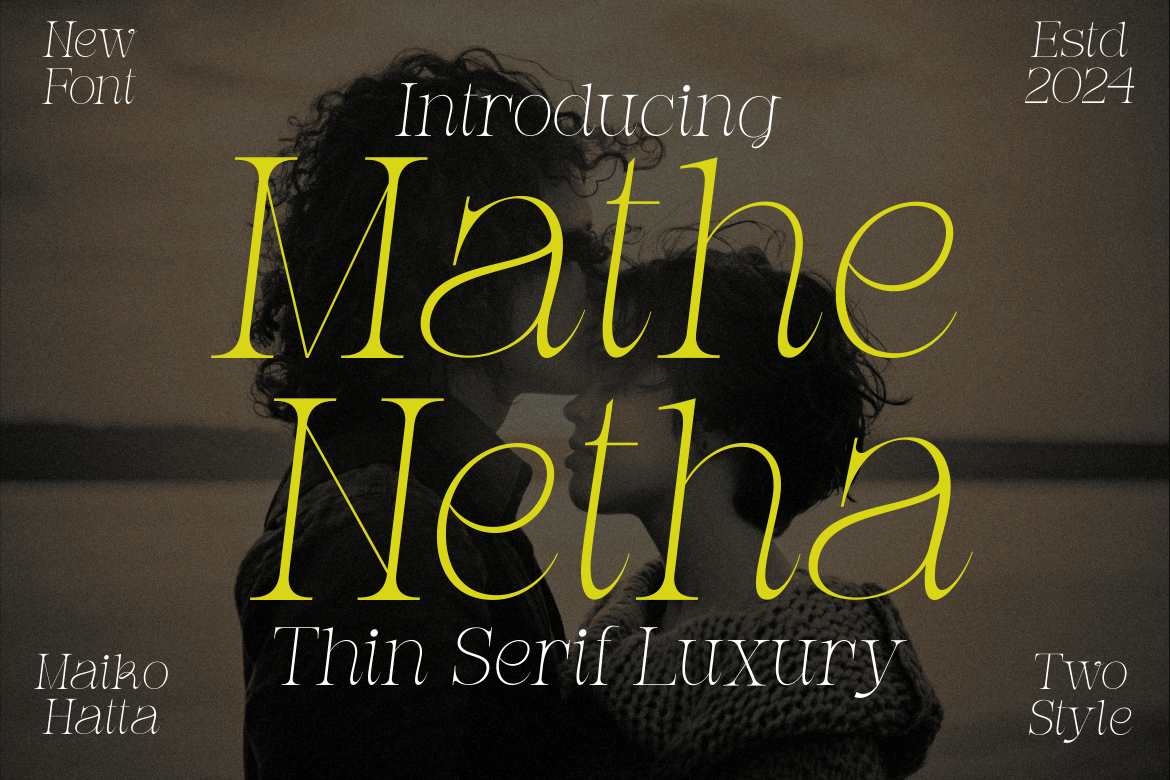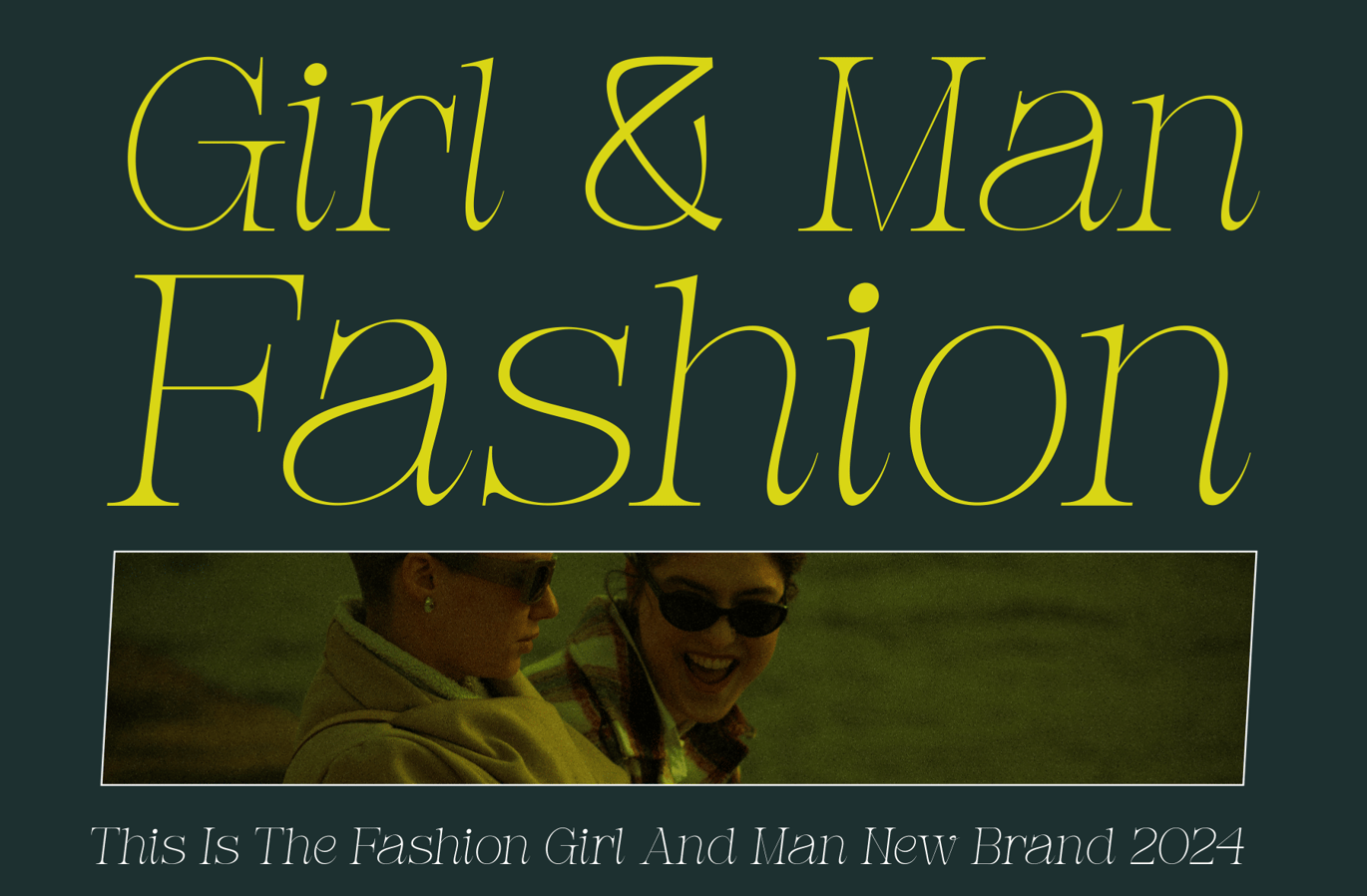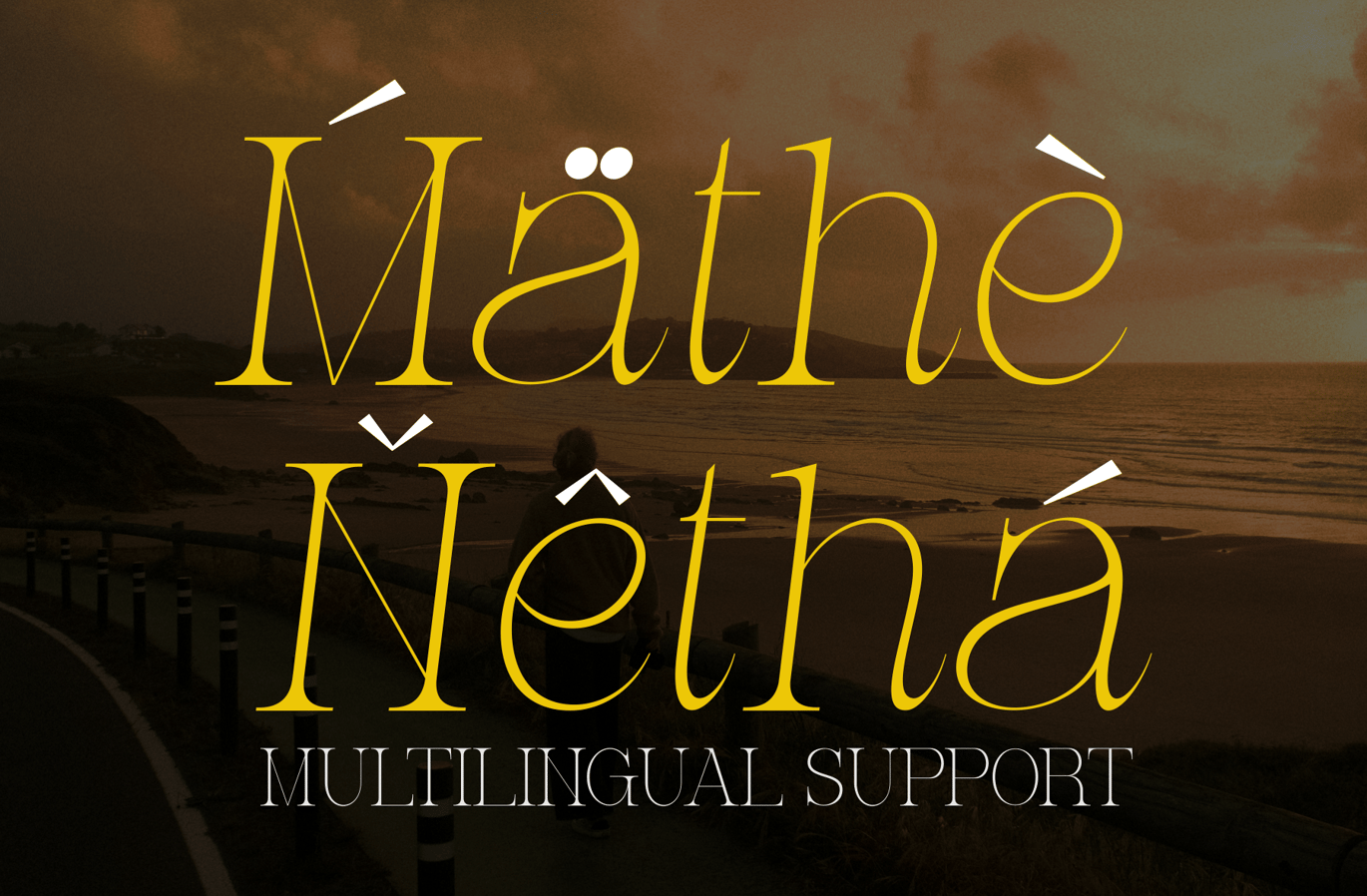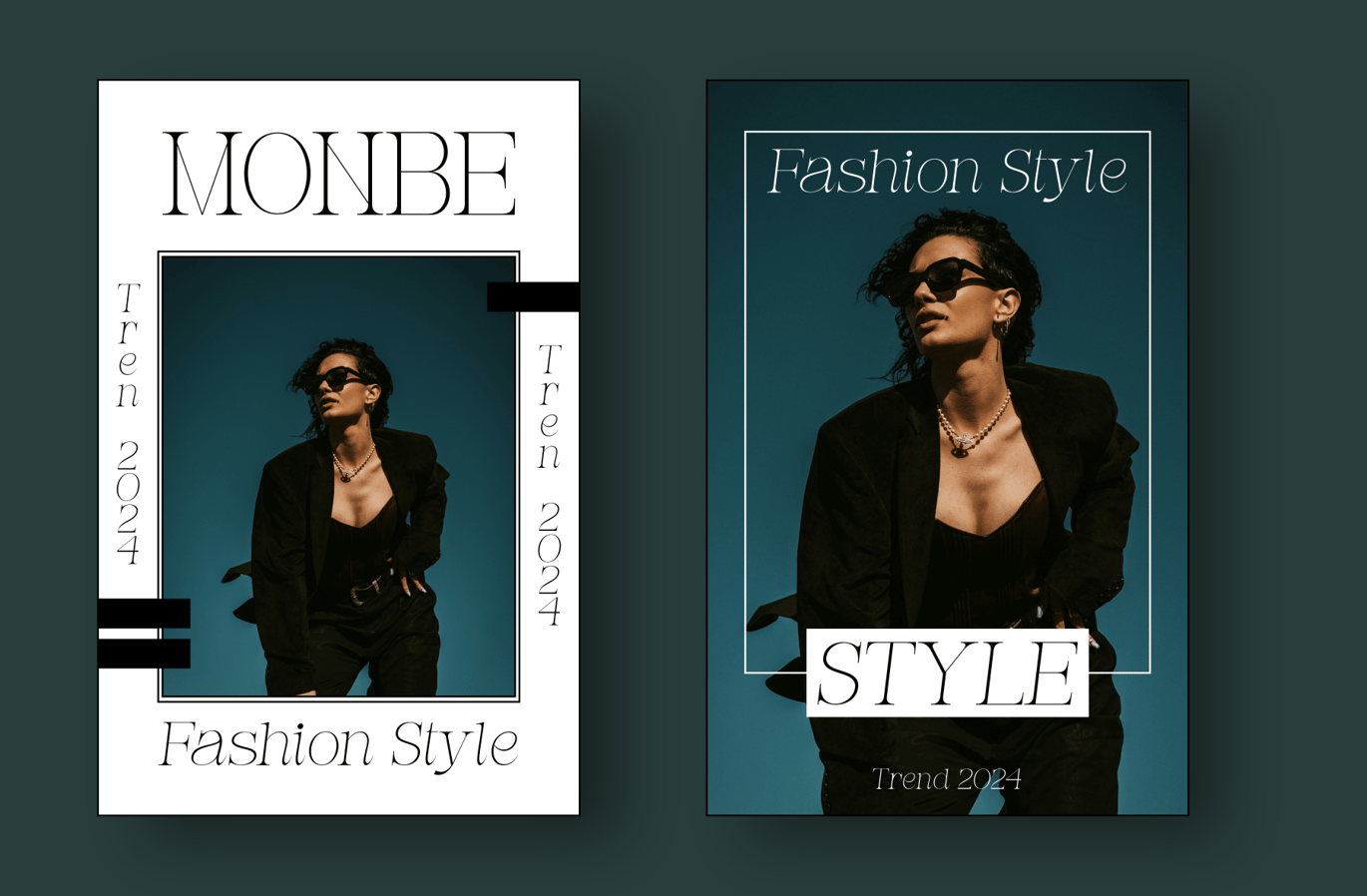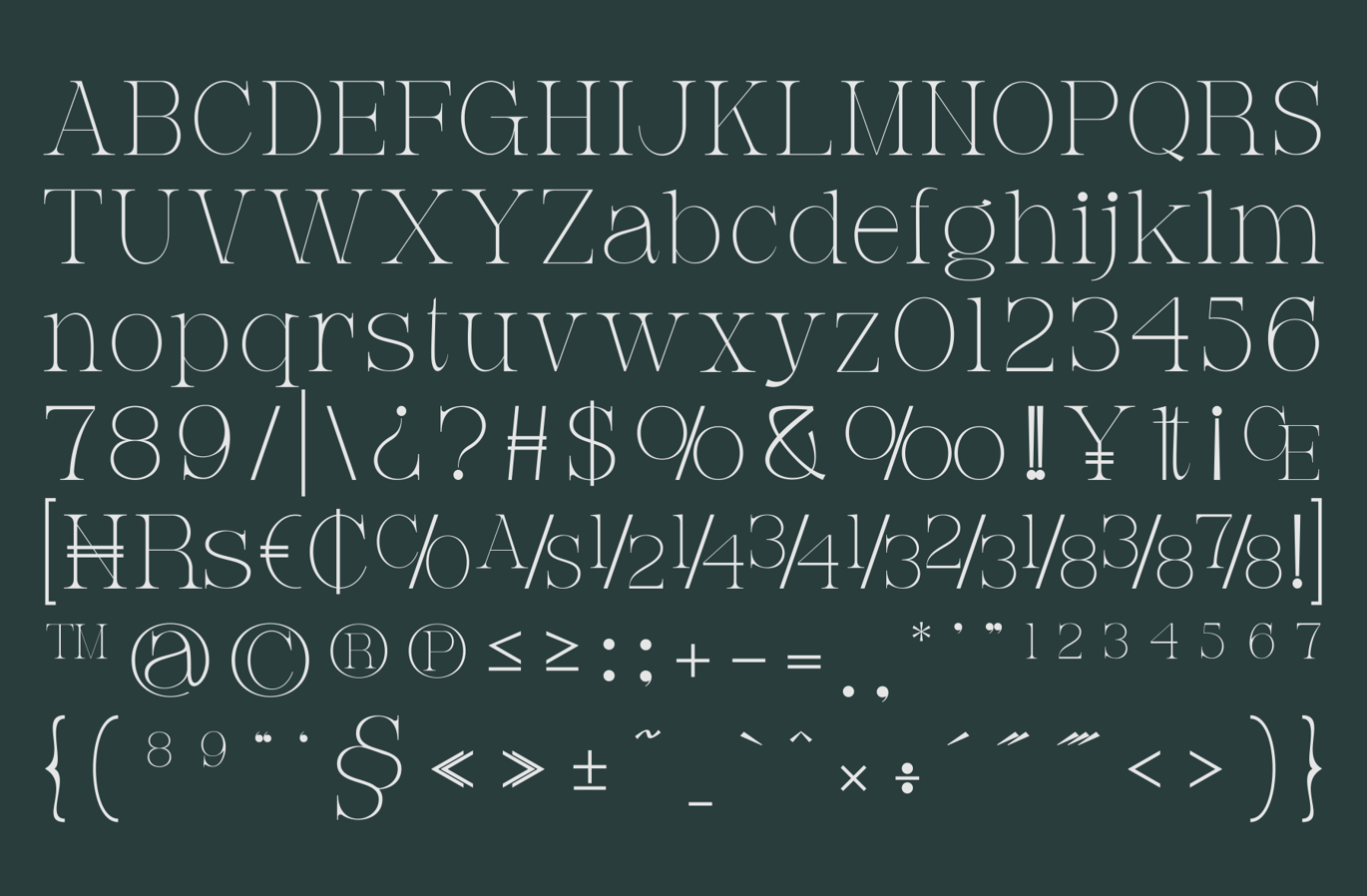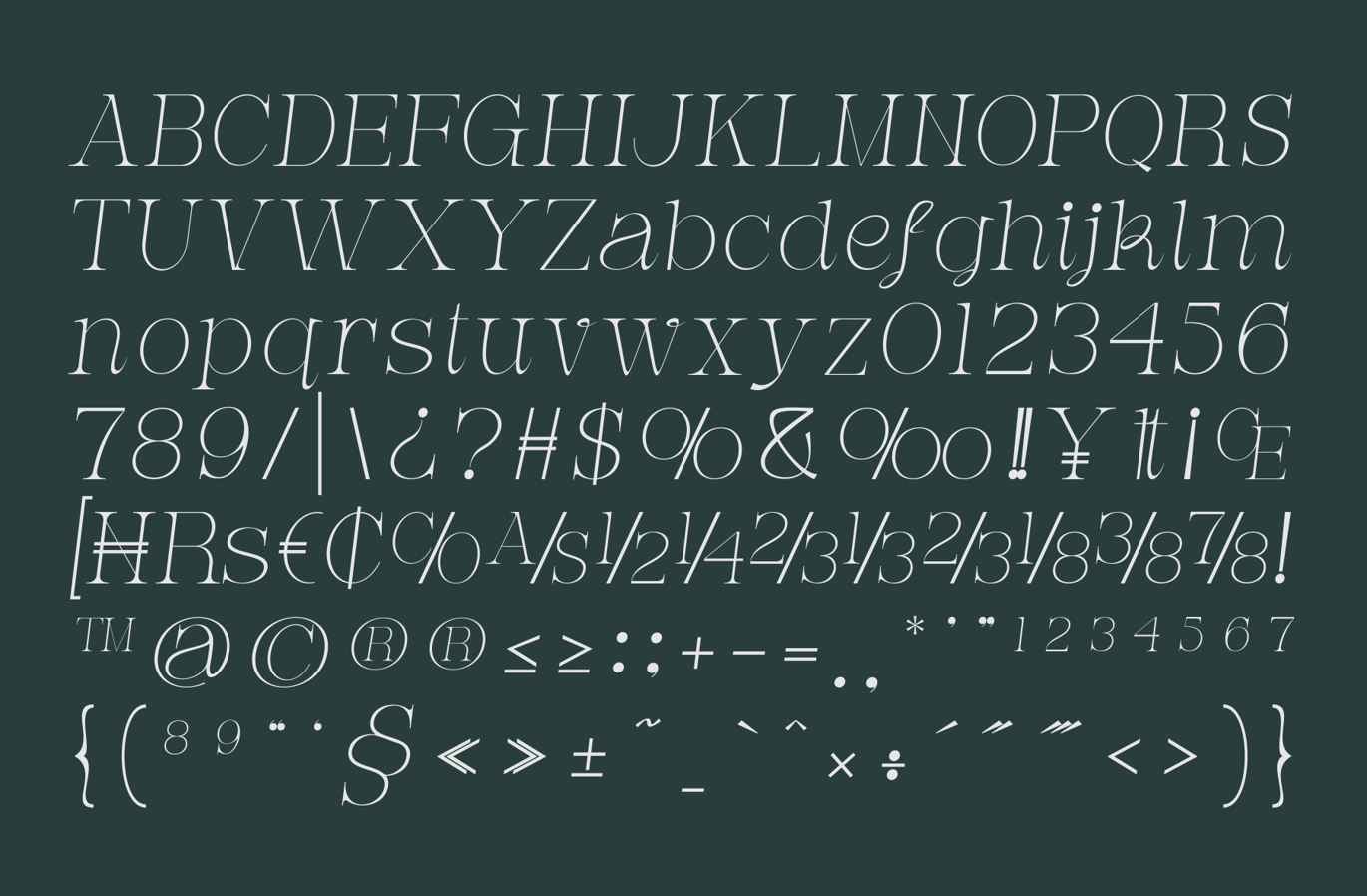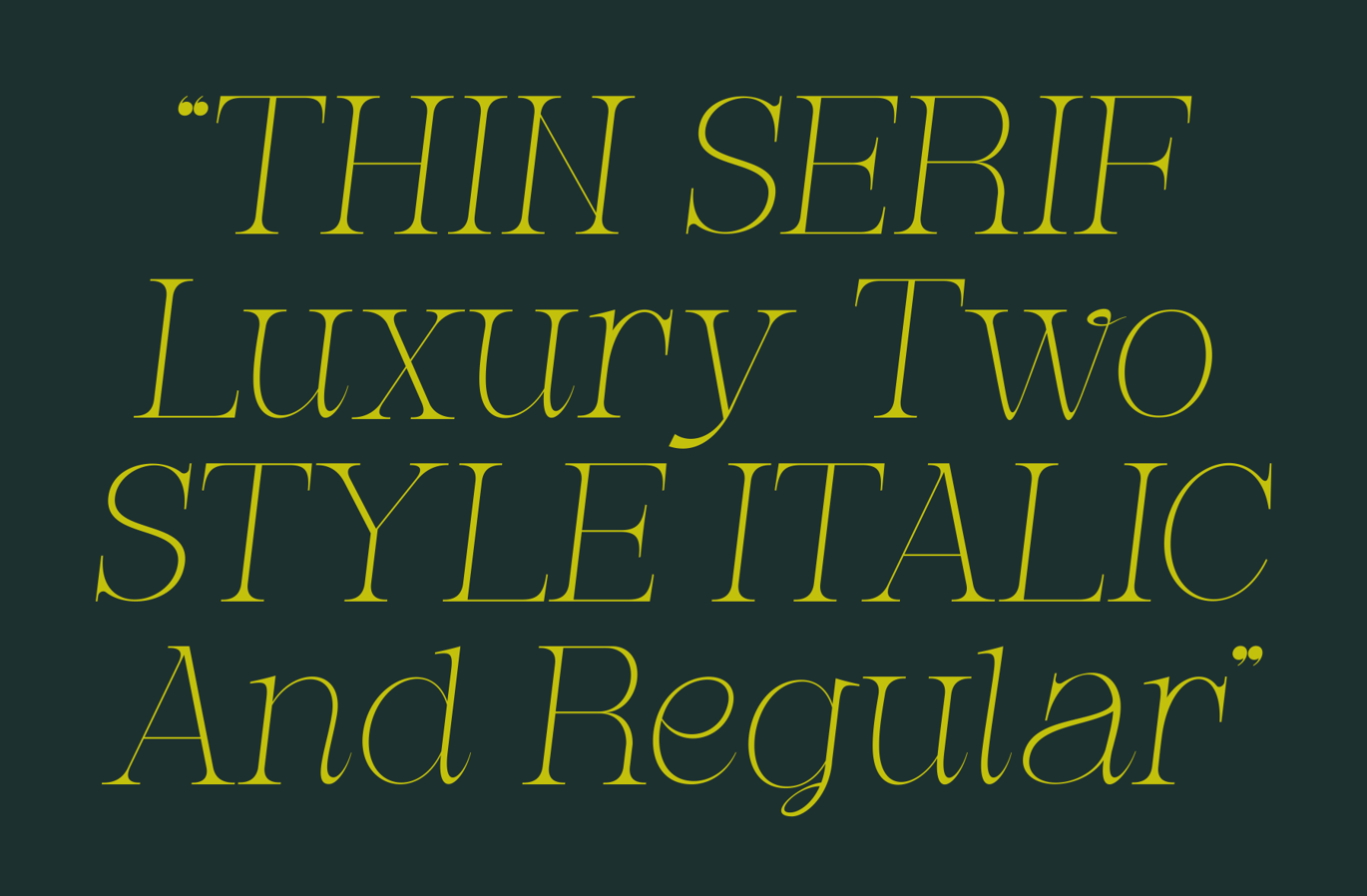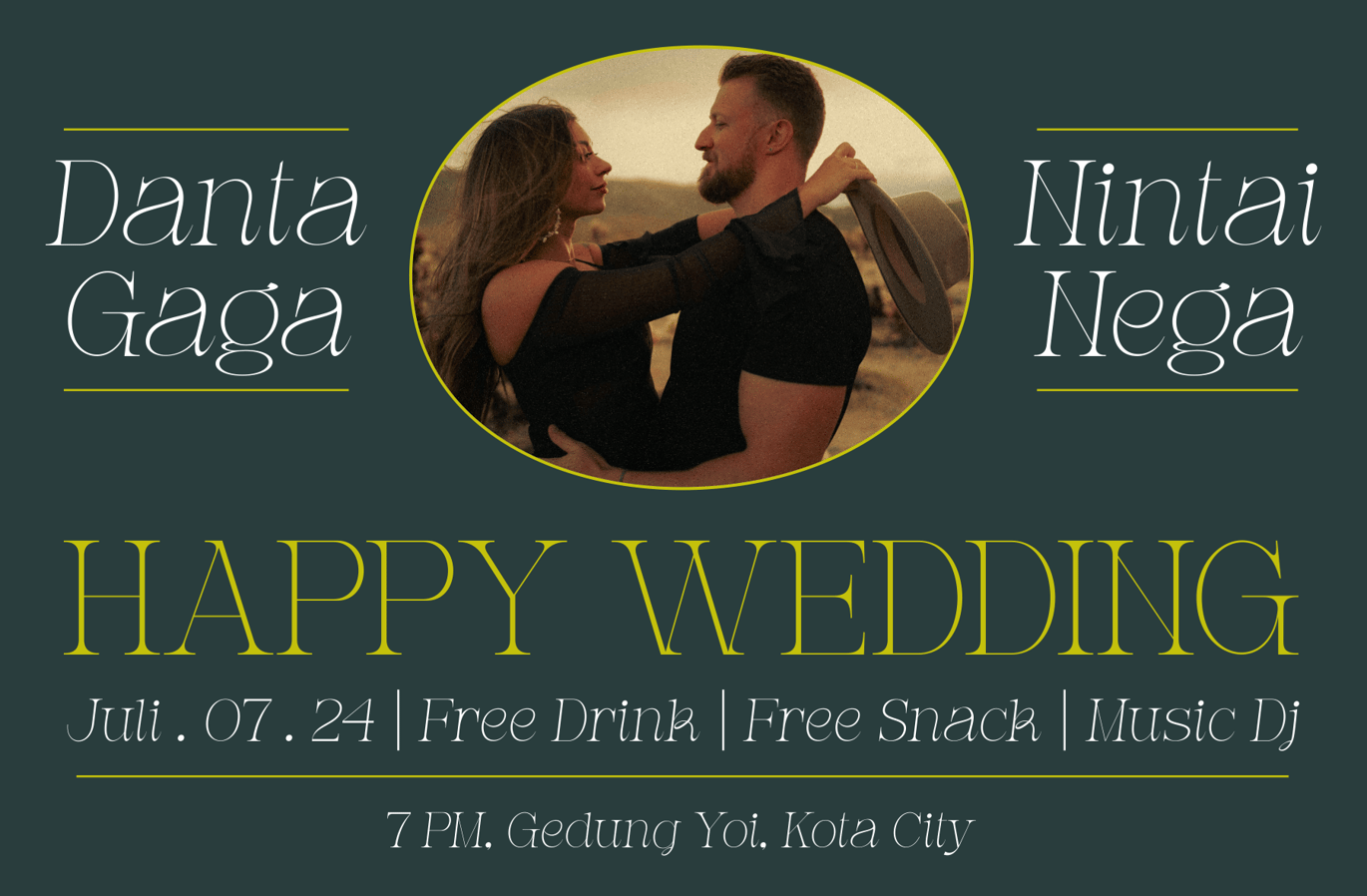
Mathe Netha – Thin Serif Luxury Font
Introducing our new product Mathe Netha – Thin Serif Luxury Font
This font is a typographic masterpiece that harmonizes elegance and sharpness. Every letter within this font is meticulously designed, with a keen focus on balanced proportions and impeccable alignment. This font is well-suited for a variety of contexts, such as print design, promotional materials, or magazine layouts.